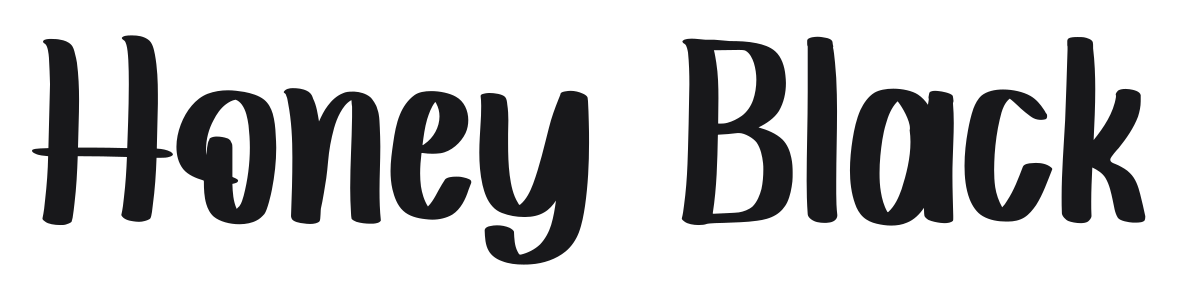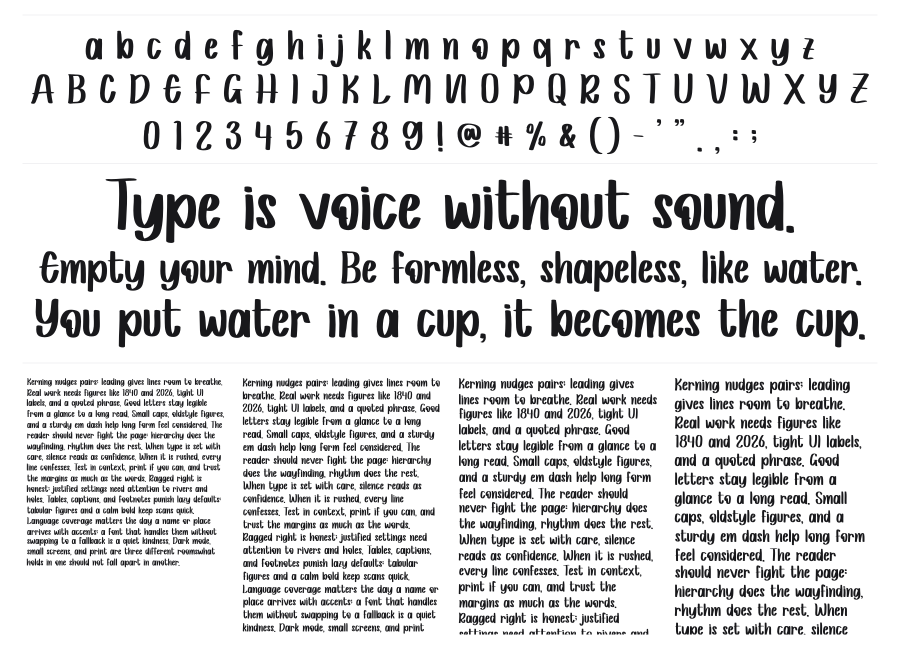
Honey Black
by Letterafa Studio
Honey Black is a heavy upright casual script with bold, chunky strokes and a hand-lettered personality. The rounded forms and informal rhythm feel warm and approachable without tipping into childish. It carries well at large sizes for logos, packaging, and display headlines.